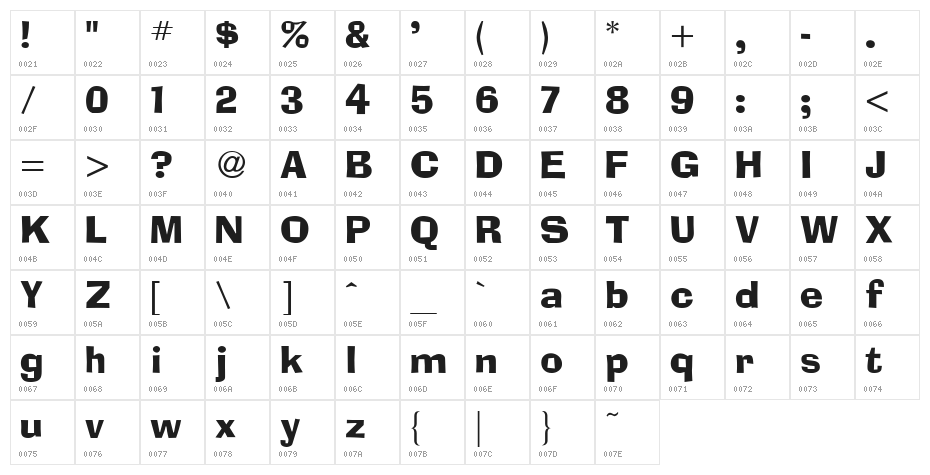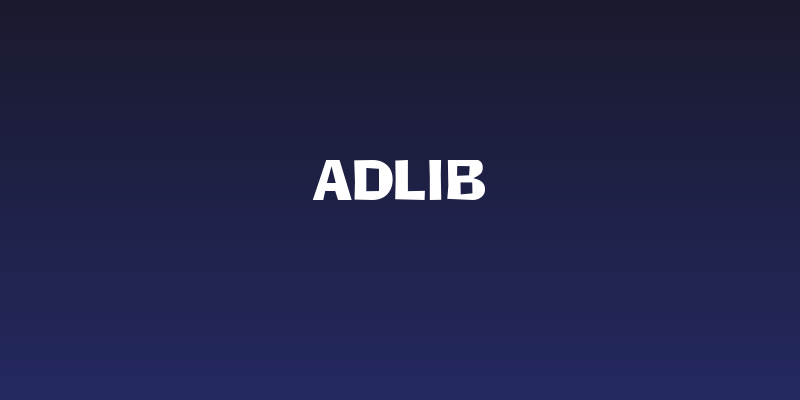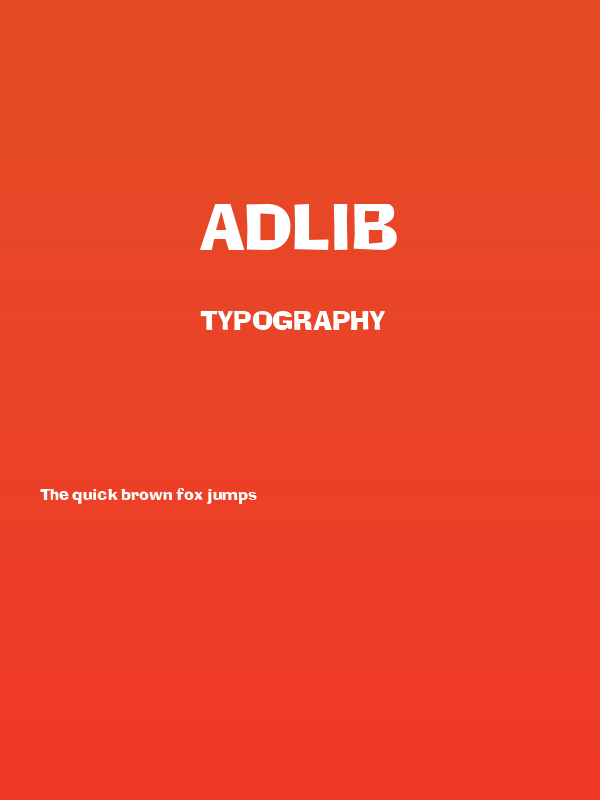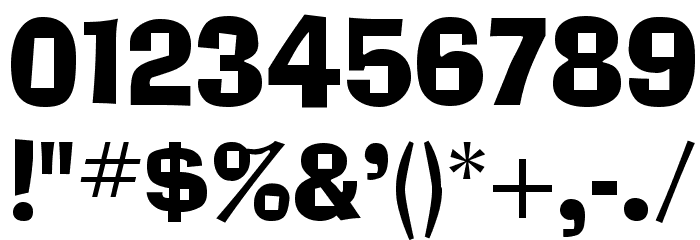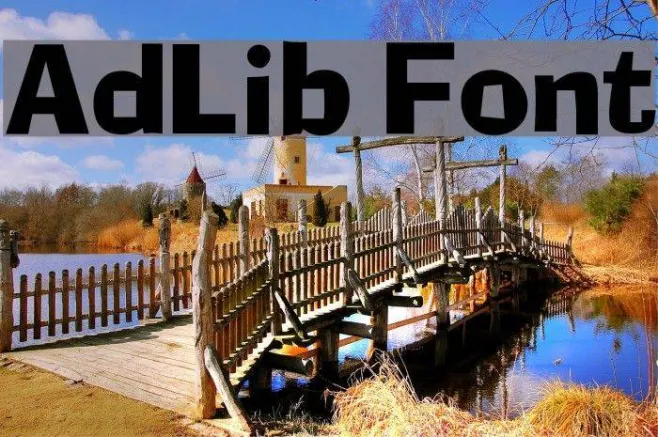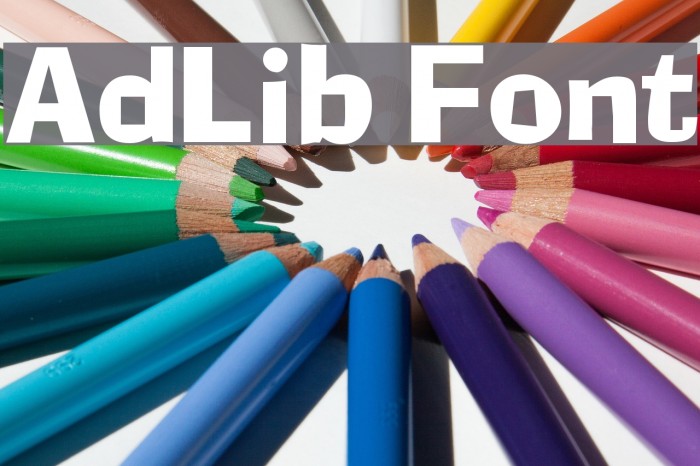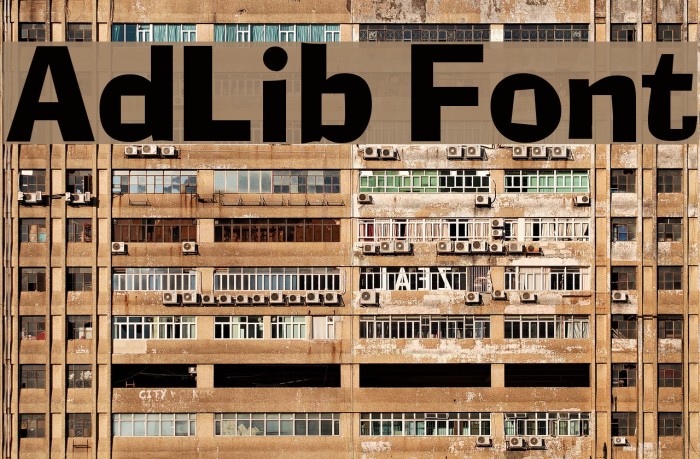
AdLib Font
AdLib Description
This font features bold, geometric letterforms with a strong presence. The uppercase letters are robust and commanding, while the lowercase letters maintain a consistent weight, offering a harmonious balance. The numerals are clear and easily distinguishable, making them suitable for various applications. Special characters are designed with the same boldness, ensuring uniformity across all glyphs. The overall design is modern and impactful, making it ideal for attention-grabbing headlines and branding projects.